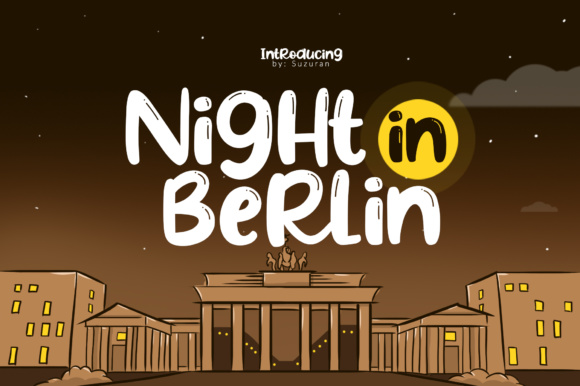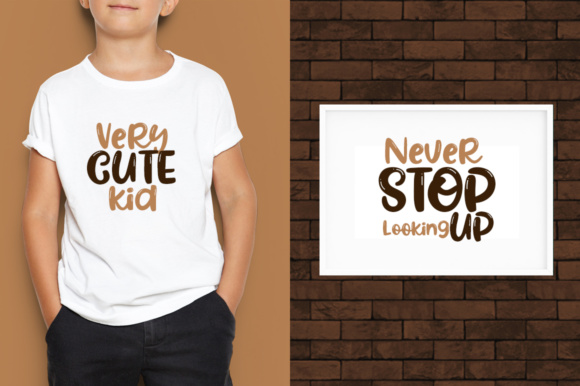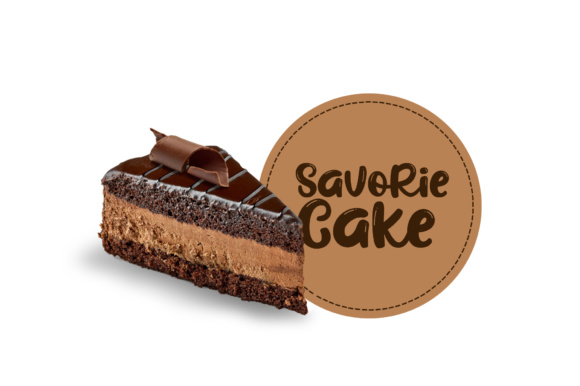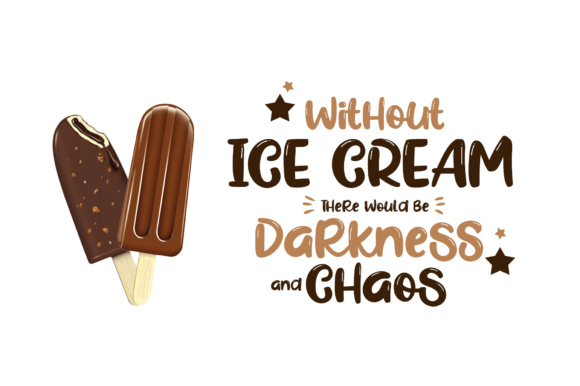
Night in Berlin Font
About the Night in Berlin Font
Let us introduce you to Night in Berlin Font, where timeless design meets modern craftsmanship. Night in Berlin is a fun display font which comes in two styles: regular & italic. It’s suitable for logos, greeting cards, branding, posters and any other design that needs a striking typeface.
Night in Berlin excels as a display font for headlines, posters, and short impactful text in branding materials. Its playful yet bold nature makes it ideal for projects targeting a younger demographic or conveying a sense of fun and energy. Avoid using it for body text or long paragraphs; its highly stylized forms are difficult to read at smaller sizes.
Consider pairing Night in Berlin with a clean sans-serif like Open Sans for body copy to balance its strong personality. For a more sophisticated feel, pair it with a classic serif such as Garamond or a slightly more geometric sans-serif like Montserrat. These pairings provide readability and contrast, allowing Night in Berlin’s distinctive character to shine.
The font’s overall personality is bold and playful, yet with a touch of vintage charm. It’s a great choice for brands focused on entertainment, nightlife, fashion, or products that embody a spirited, modern aesthetic.
Night in Berlin Font Usage Examples
Night in Berlin Font Example